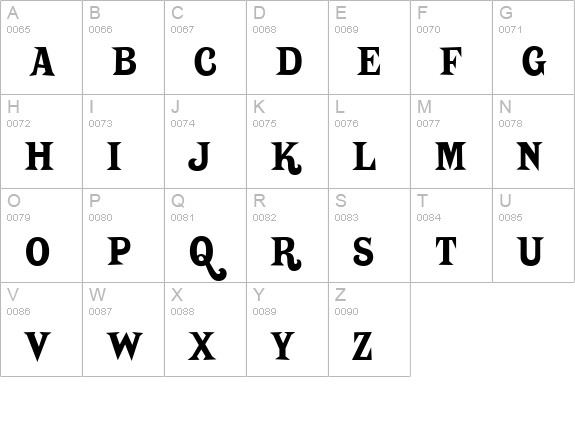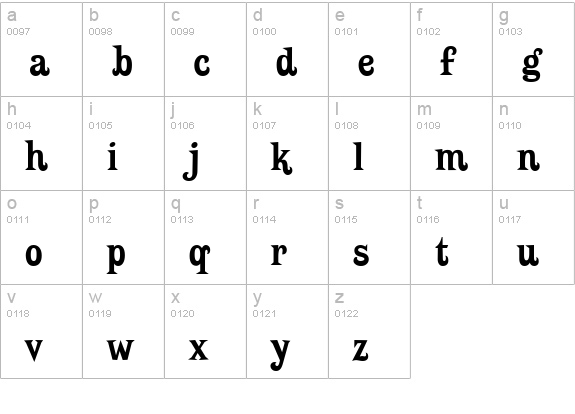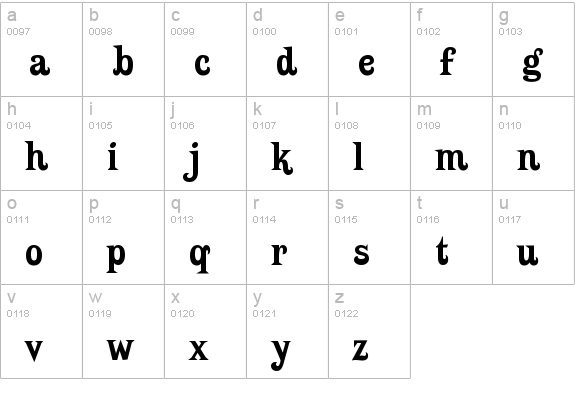
Putain Font Details
Putain font is a modern and sleek typeface that exudes sophistication and elegance. With its clean lines and sharp edges, this font is perfect for creating eye-catching designs that demand attention. Whether you're working on a branding project, website design, or any other creative endeavor, Putain font will elevate your work to the next level. And the best part? Putain font is completely free to download at FontsMarket.com. That's right, you can access this stunning typeface at no cost and use it in your projects without any restrictions. Don't miss out on the opportunity to add Putain font to your font library today and take your designs to new heights.